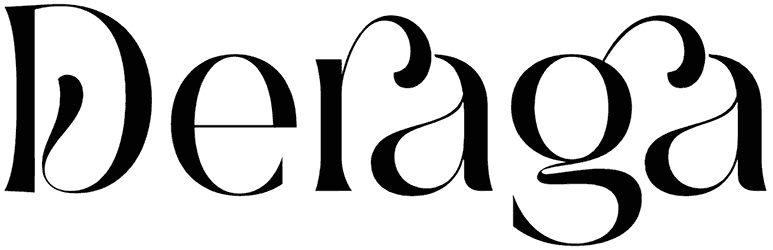
Deraga Font
No matter how advanced you are in the design process, you need Deraga to make your font collection versatile. This serif font has met all the standards and can manage official projects.
With this luxury font, which is generally simple and uncomplicated to look at, you’ll have a lot of freedom to design your background. If you want to use elements of minimalism in your website, print, and digital writing, you will be more successful with these two styles.